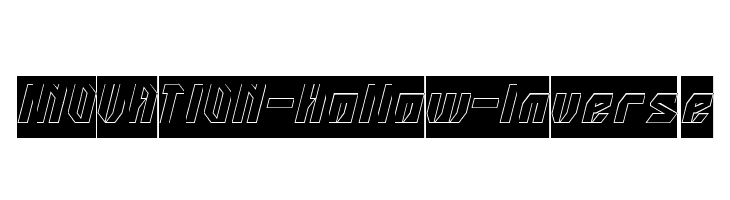
A bold, hollow, inverse font with a modern, geometric design.
A bold, angular font with a futuristic and dynamic design.
A hollow, angular font with a geometric and futuristic style.
A modern, geometric hollow font with an inverse style and symmetrical forms.